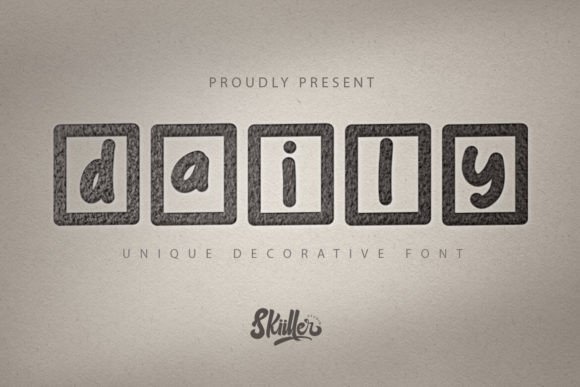
The Daily Font: A Charming Addition to Your Creative Projects
I’ll never forget the time I was working on a design project for a client who wanted a font that would make their brand stand out. I had spent hours scouring the internet for the perfect font, but nothing seemed quite right. That was when I stumbled upon The Daily font. Its unique, hand-drawn style and neatly placed letters inside squares immediately caught my eye. I knew right then and there that it was the perfect fit for my client’s project.
A Personal Review of The Daily Font
- ✨ The Daily font’s unique and artistic look makes it perfect for creative projects that need a touch of personality.
- ✅ Its hand-drawn feel gives it a charming, one-of-a-kind vibe that’s sure to grab attention.
- 💡 The font’s decorative style makes it ideal for titles, headings, and other display text.
- 🎨 The square-shaped letters add a fun and playful touch to any design.
While The Daily font is an excellent choice for many projects, there are a few things to keep in mind. 🤔 For example, the font’s decorative style may not be the best choice for body text or other long-form content. ⚠️ Additionally, some of the font’s more intricate details may not display well at smaller sizes.
The Story Behind The Daily Font
The Daily font was designed by a team of creatives who wanted to create a font that would add a touch of personality to any design project. Inspired by traditional hand-drawn lettering, The Daily font features neatly placed letters inside squares, giving it a unique and artistic look. The font’s designers aimed to create a font that would be both decorative and easy to read, making it perfect for titles, headings, and other display text.
| Font Name | Daily Font |
| Author | Skiiller Studio |
| What type of projects is The Daily font best suited for? | The Daily font is perfect for creative projects that need a touch of personality, such as titles, headings, and other display text. |